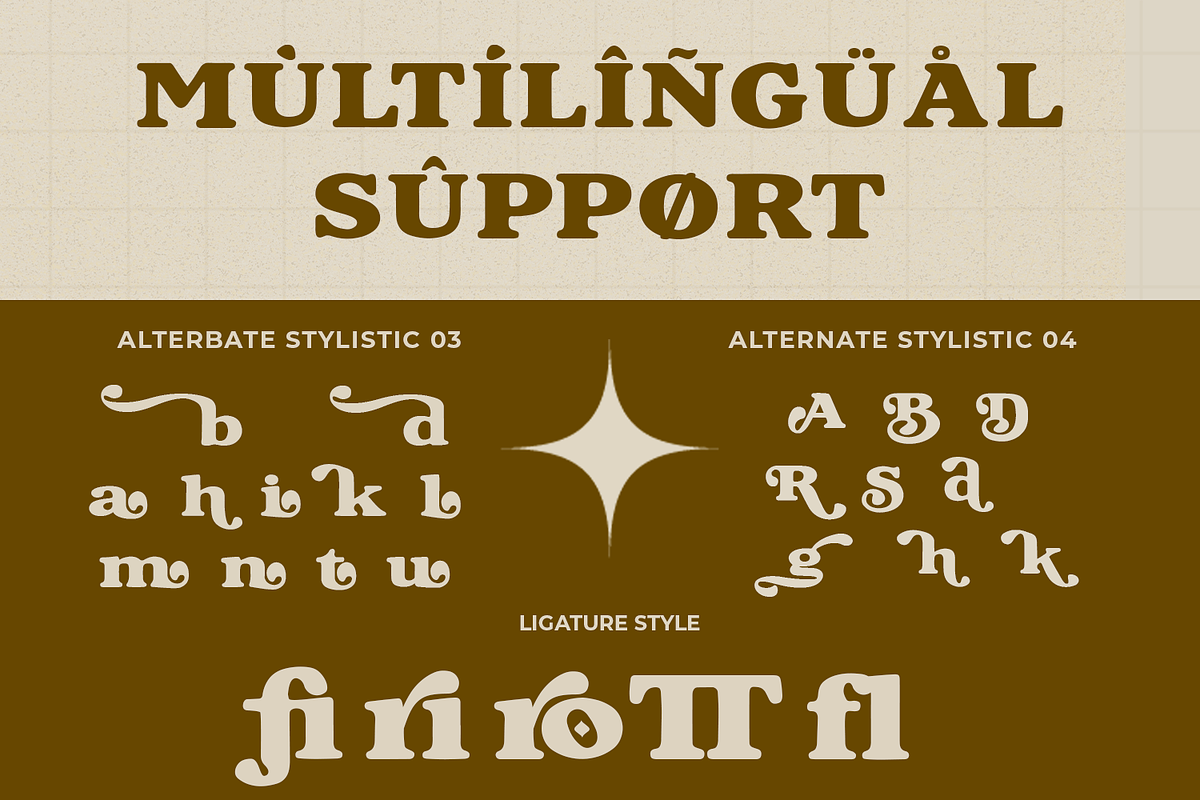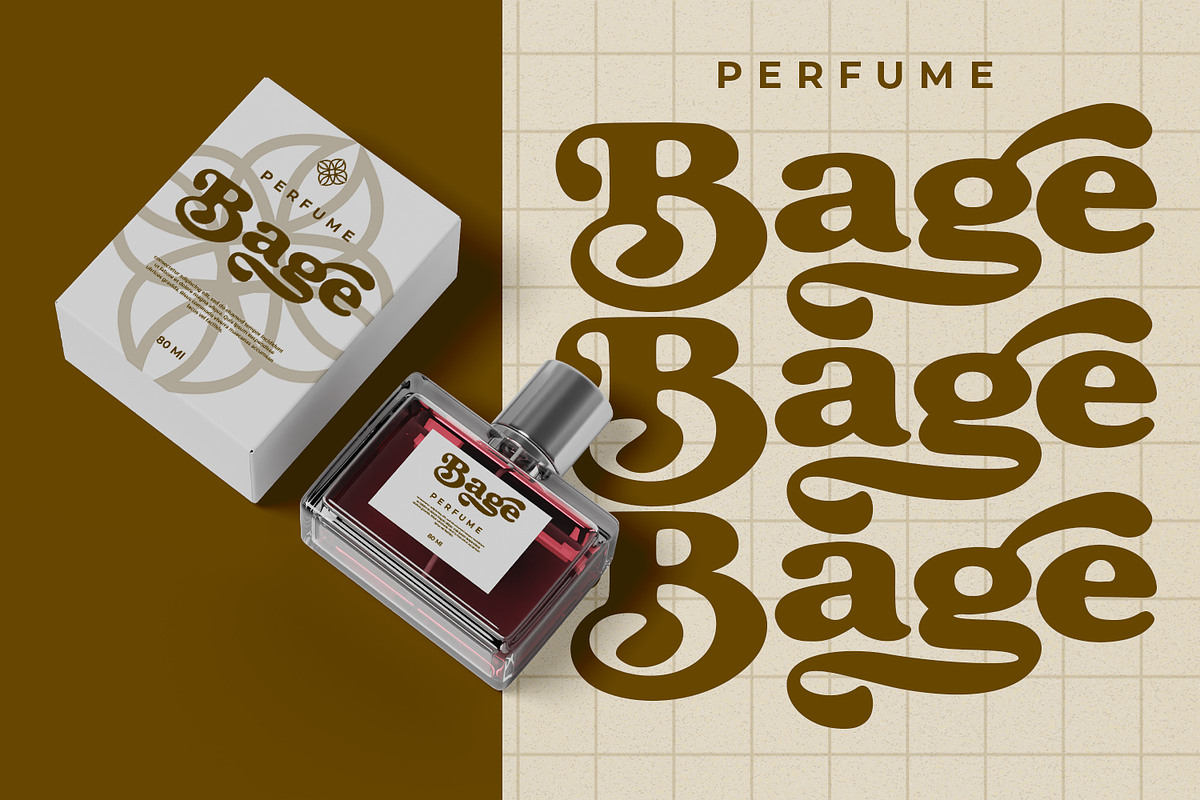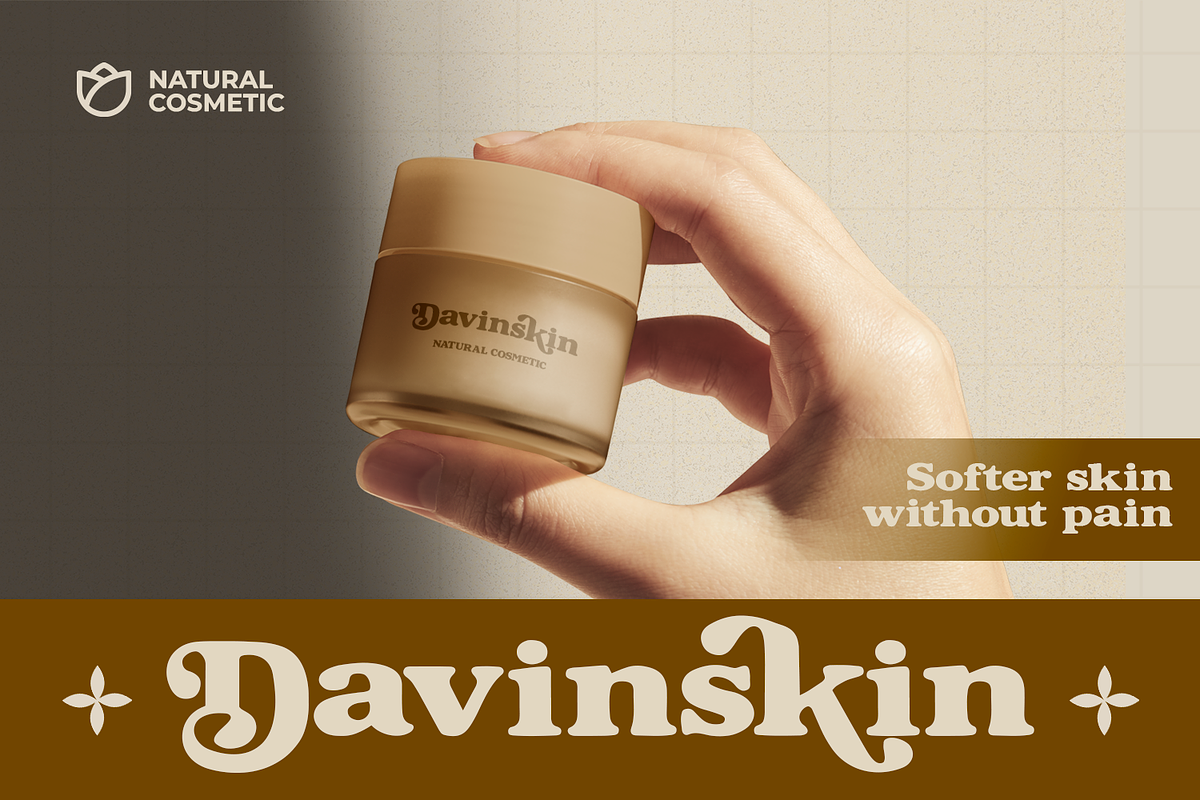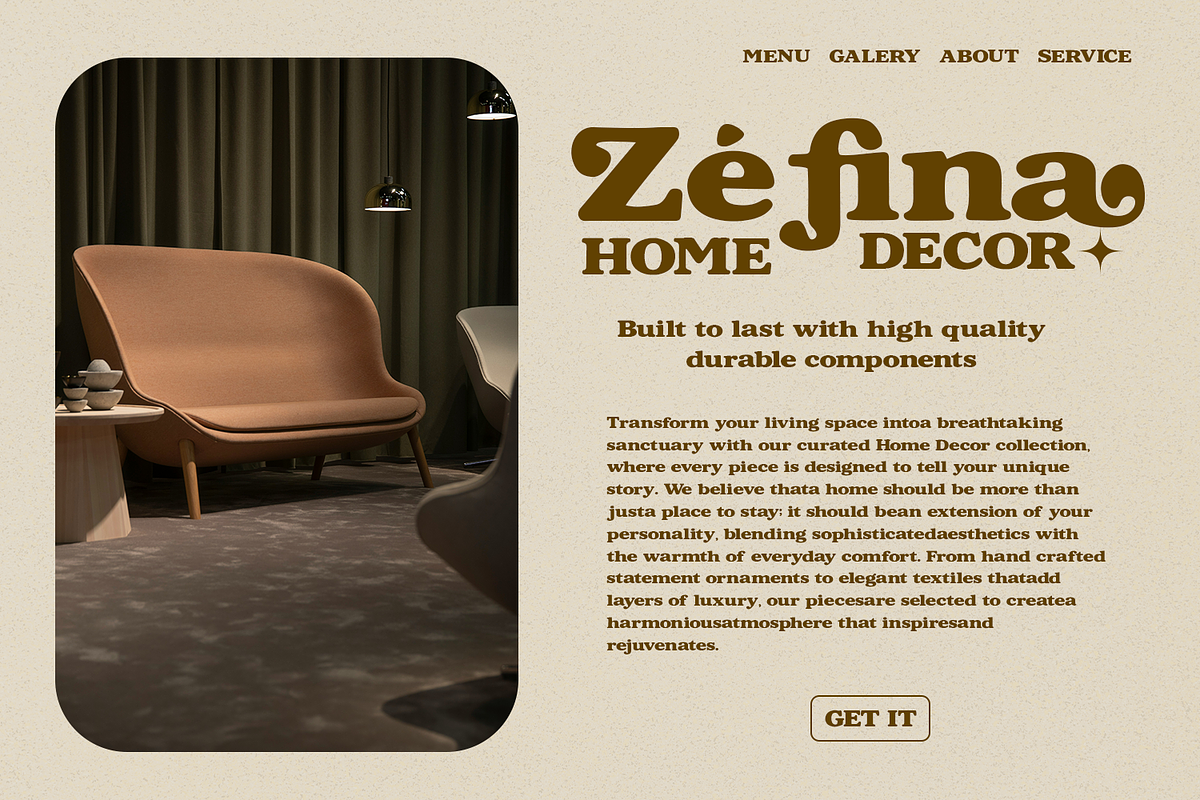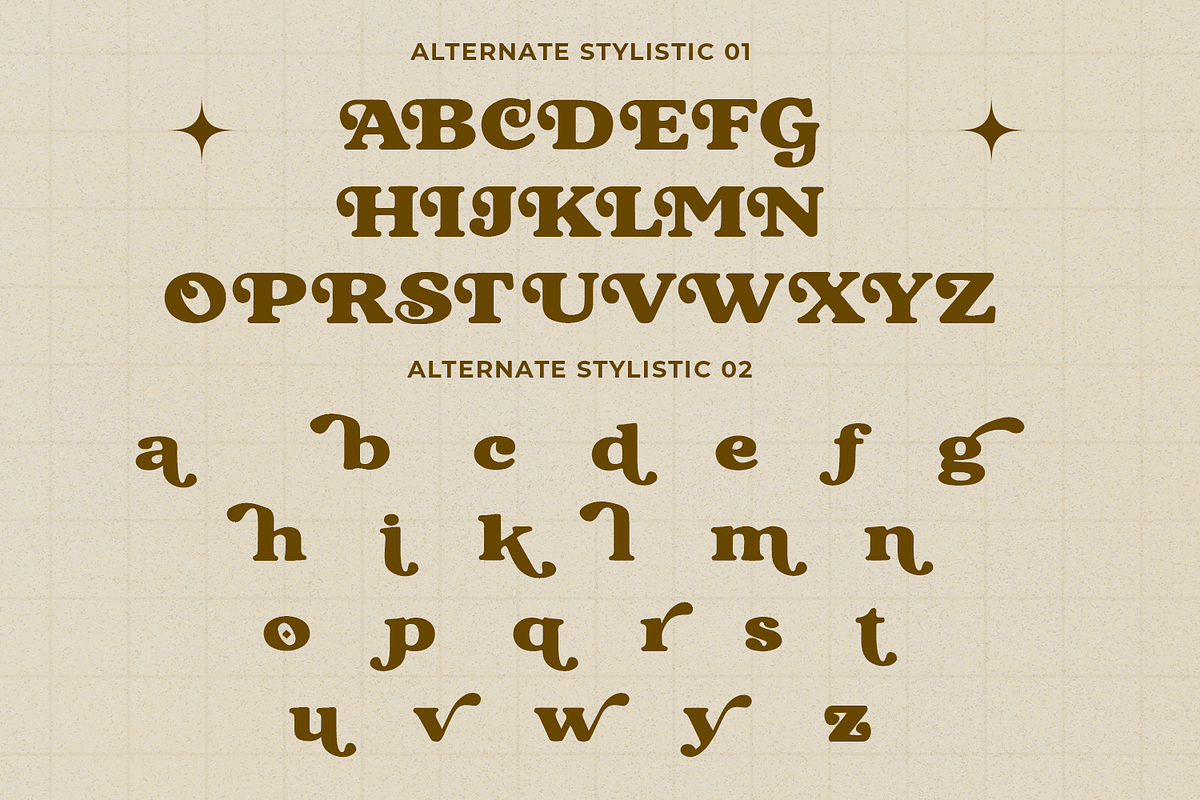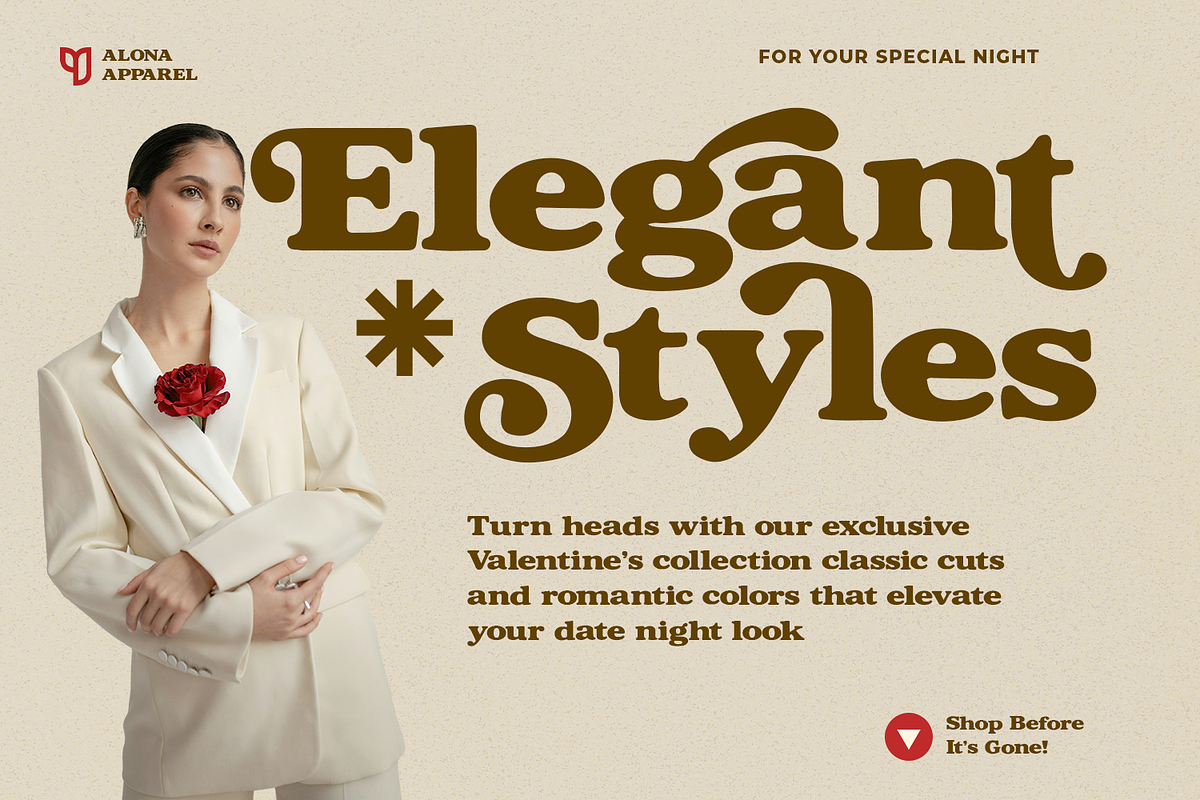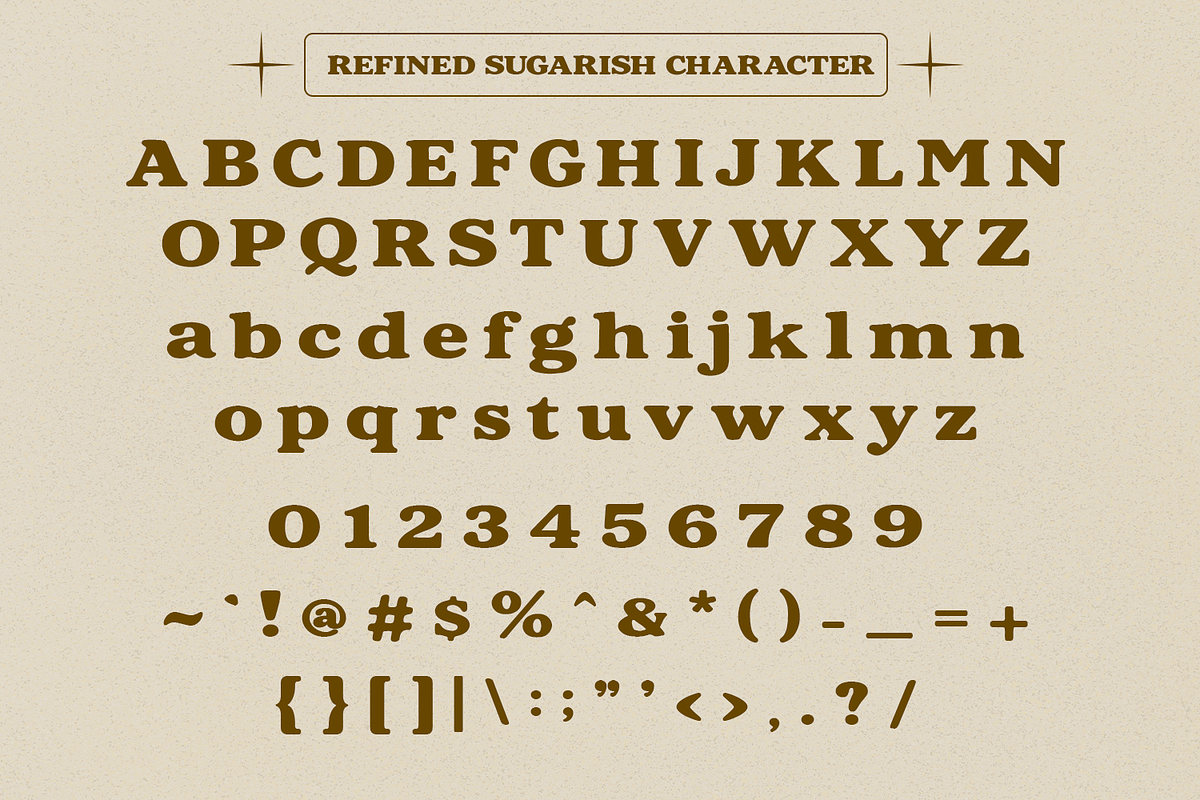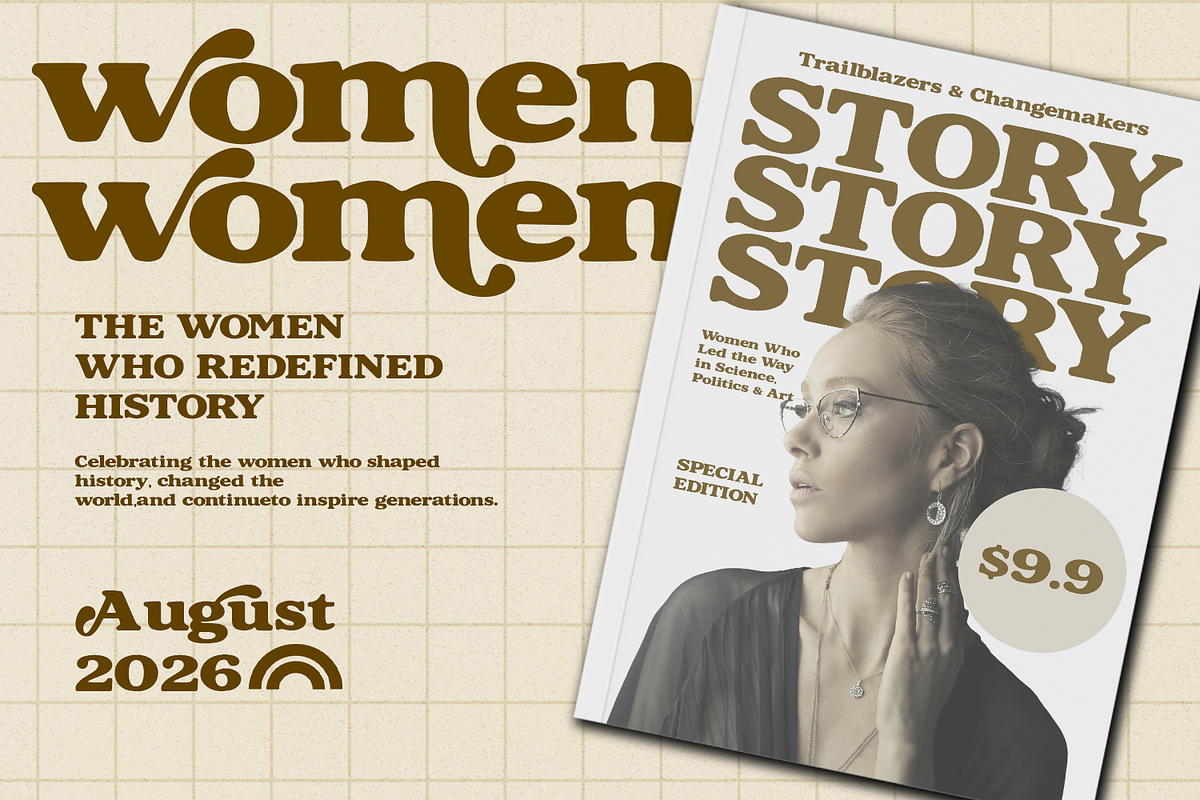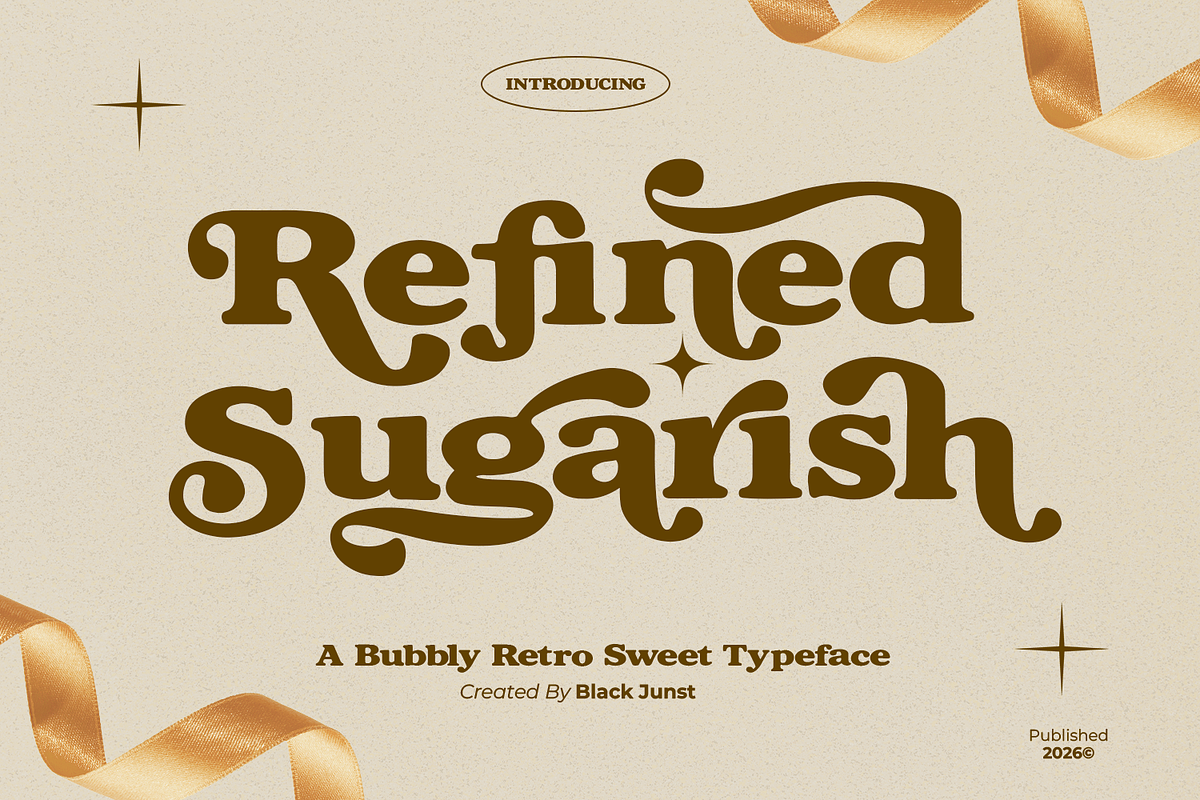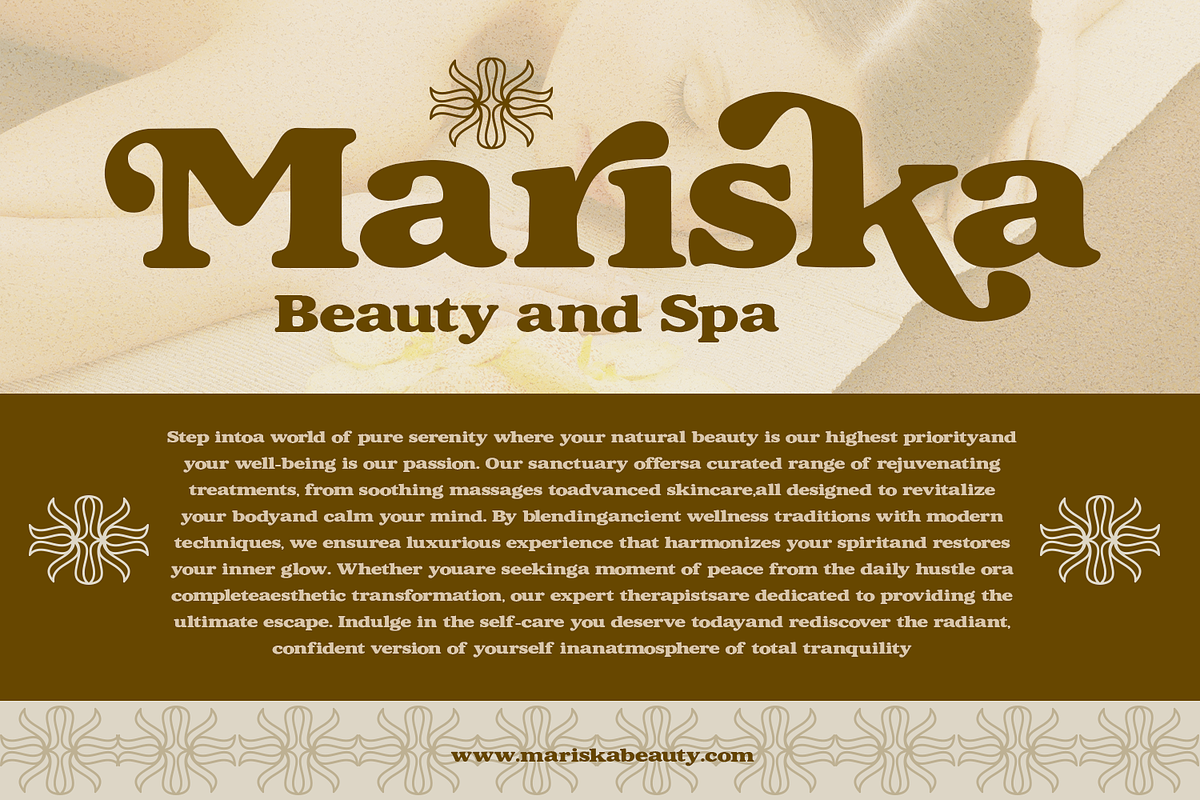
Refined Sugarish – Retro Sweet 70s
Retro Sweet 70s Font
Refined Sugarish is a retro sweet 70s font designed to bring bold, bubbly, and nostalgic energy into your creative projects. Inspired by classic 1970s typography, this groovy display typeface features rounded serif details, smooth curves, and a strong headline presence that instantly grabs attention.
With its playful yet premium personality, Refined Sugarish works perfectly as a retro display font for branding, packaging, and statement typography. The bold letterforms make it highly readable in large sizes, while the soft curves add warmth and charm to every design.
This font is perfect for:
- Retro and vintage logo design
- Bakery, dessert, candy, and pastry branding
- Coffee shop packaging and menus
- Feminine and beauty brand identity
- Poster and editorial headlines
- 70s-inspired merchandise and apparel
- Social media graphics and quotes
- Wedding and sweet-themed events
- Uppercase & lowercase characters
- Regular & Italic styles
- Numerals & punctuation
- Alternate characters
If you’re looking for a retro font, sweet display typeface, or groovy 70s font with strong commercial appeal, Refined Sugarish delivers the perfect balance between bold impact and soft nostalgic style.
Make your designs stand out with a playful vintage touch that feels both timeless and market-ready.